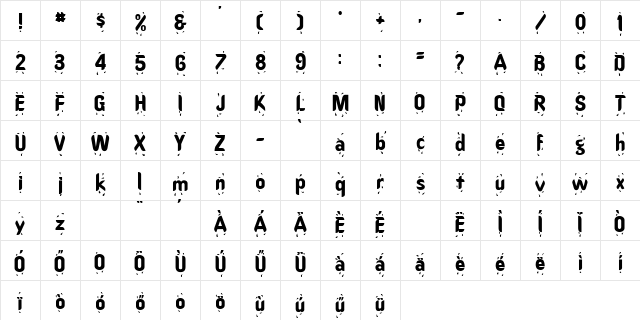
H_Liquid Regular Free Font
H_Liquid Regular
Design Context for H_Liquid
H_Liquid is a composed and adaptable typeface that performs quietly and consistently across a wide range of design contexts.